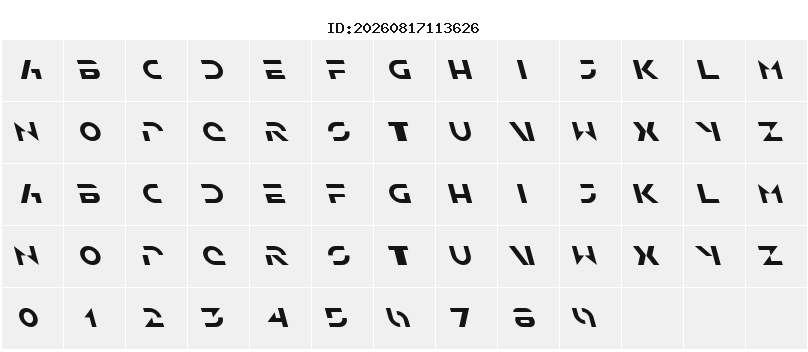
Solar Sailer Preview
• Font Name: Solar Sailer
• Full Font Name: Solar Sailer Italic
About Solar Sailer.ttf
Solar Sailer.ttf is a modern, elegant sans-serif font designed for ultimate readability and visual harmony. Perfect for branding, headlines, web design, and print materials.